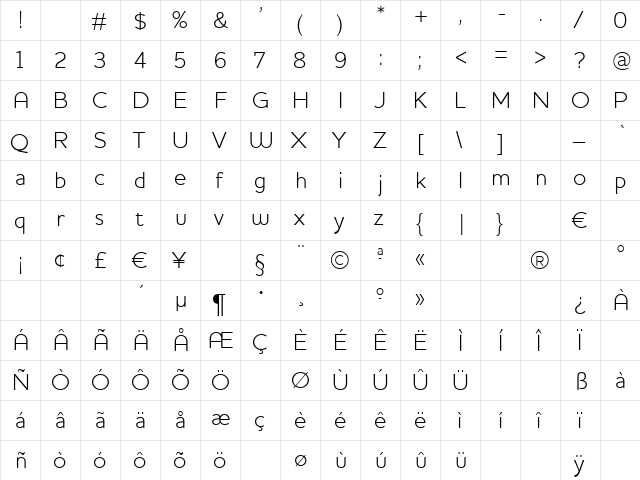
HouschkaLight Regular
Design Context for HouschkaLight Typeface
HouschkaLight offers clean, dependable letterforms without strong stylistic allegiance, making it a practical choice for designers who need flexibility. Its slender proportions lend an understated elegance to any composition.